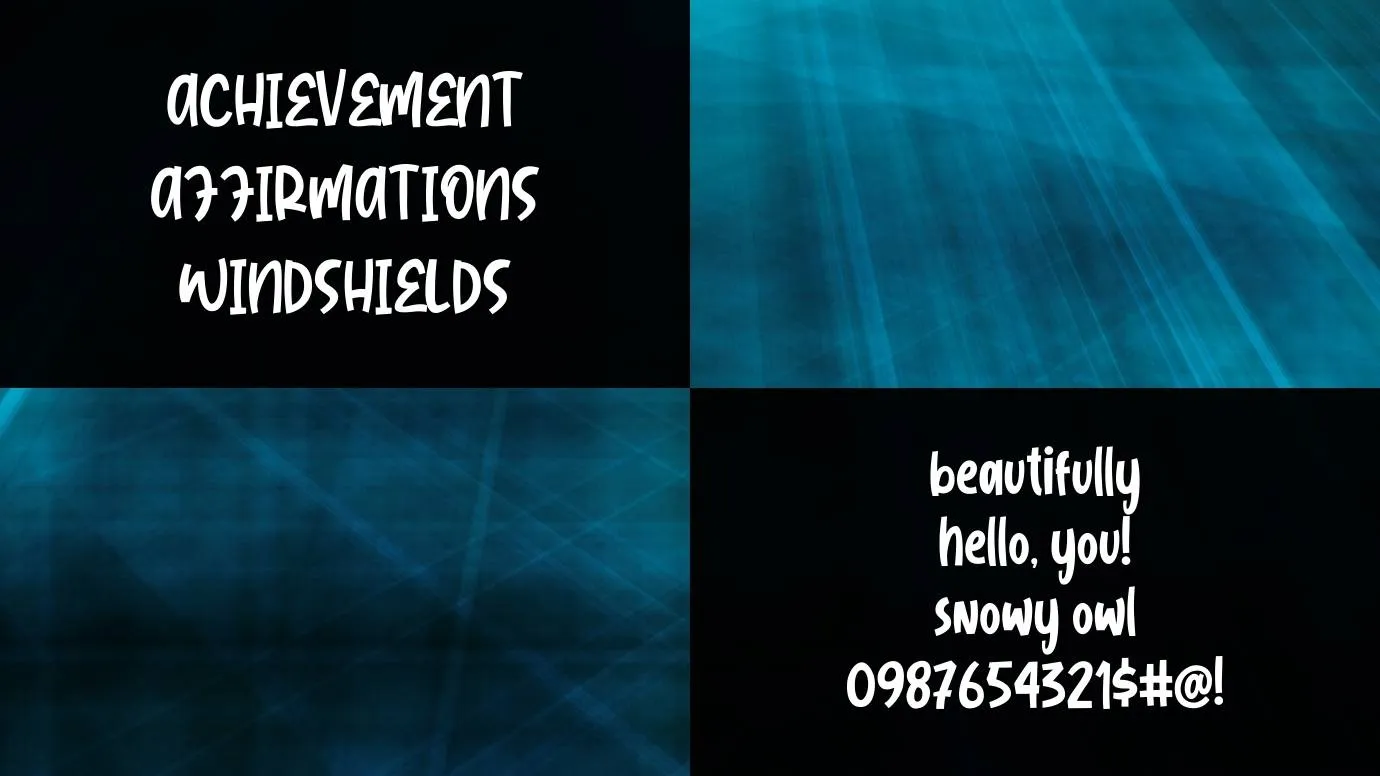
Jungle Land Font is a comic font that was created by Billy Argel in 2010. The font is perfect for any project that needs a jungle or safari theme. The font includes both upper and lowercase letters, as well as numbers and special characters..
Jungle Land texture is a great choice for invitations, posters, and other projects that need a touch of the wild. It has unique jungle-themed Glyphs that will make your project stand out from the rest. It’s perfect for any project that needs a jungle or safari theme!
It is a comic font that was created by Billy Argel in 2010. The font is perfect for any project that needs a jungle or safari theme.
It combines various factors, including uppercase letters and lower-case letters, digits, punctuations, characters, unique symbols, glyphs, and numerous language support.